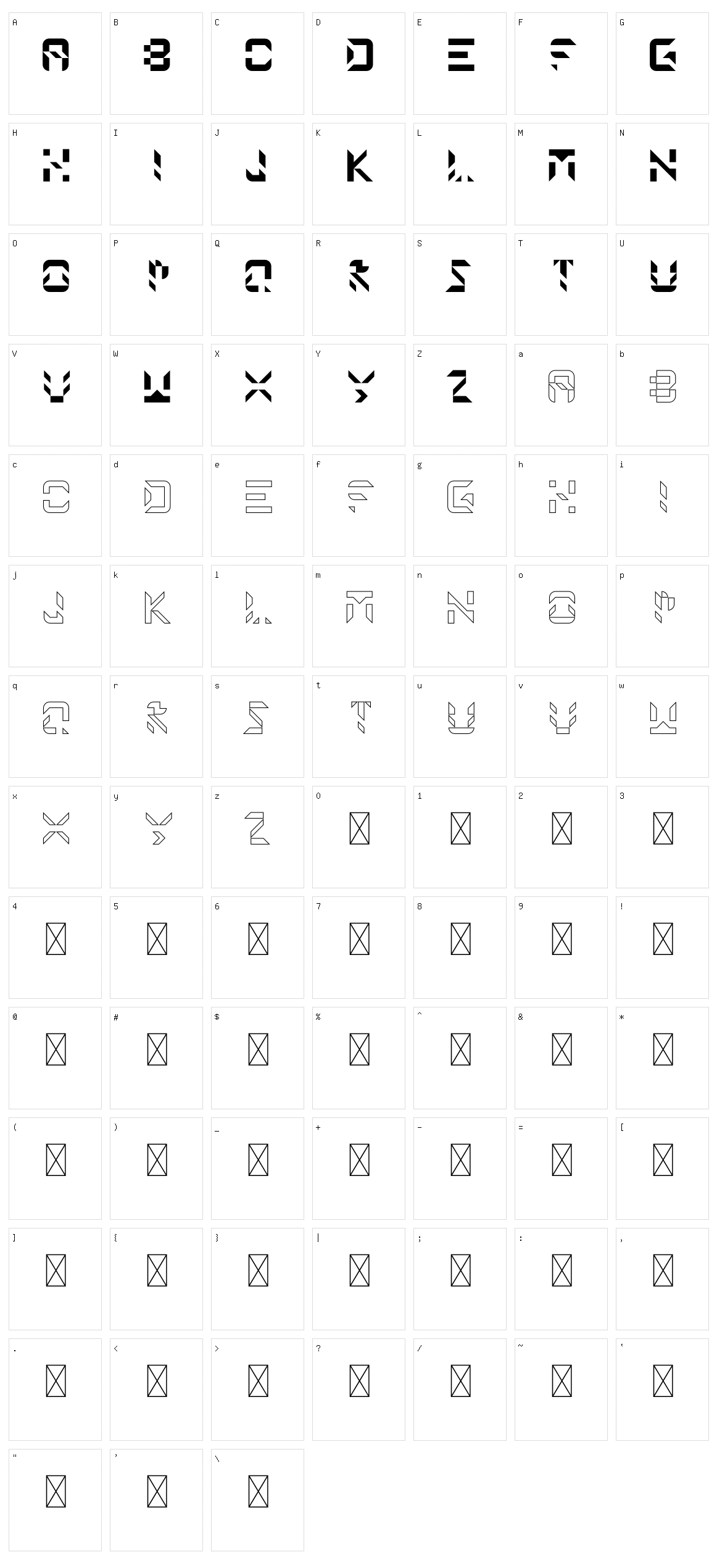
Jig Saw
It is 100% created by me using geometric shapes. It started as a college project and I wanted to take the time to turn it into a font.
I know it is not the most professional font, but I truly believe you can create awesome pieces of work with it.